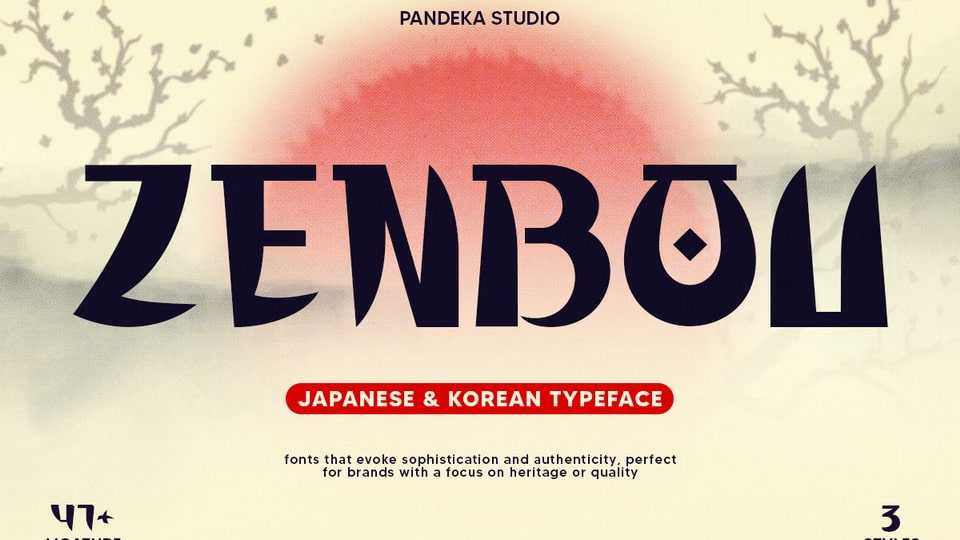
Download Zenbou font, a display typeface inspired by modern Japanese and Korean lettering. Its bold yet elegant design blends tradition with a contemporary touch.